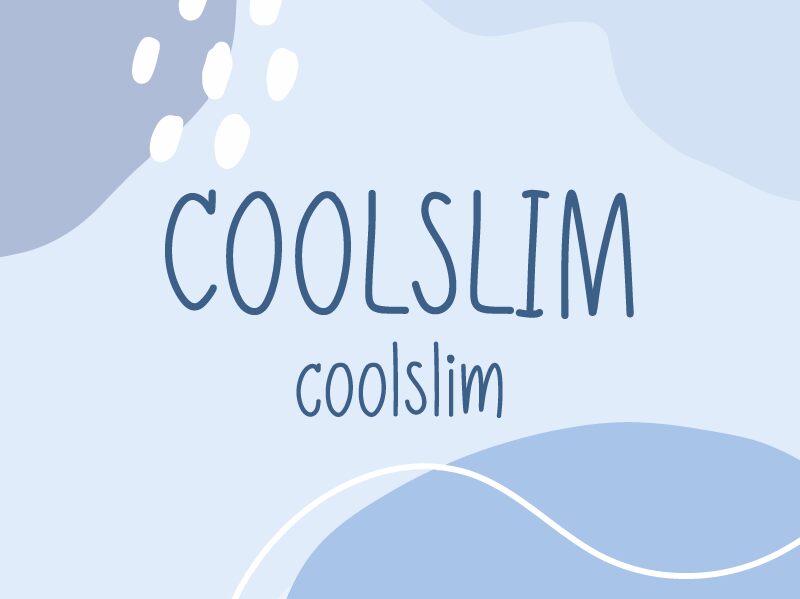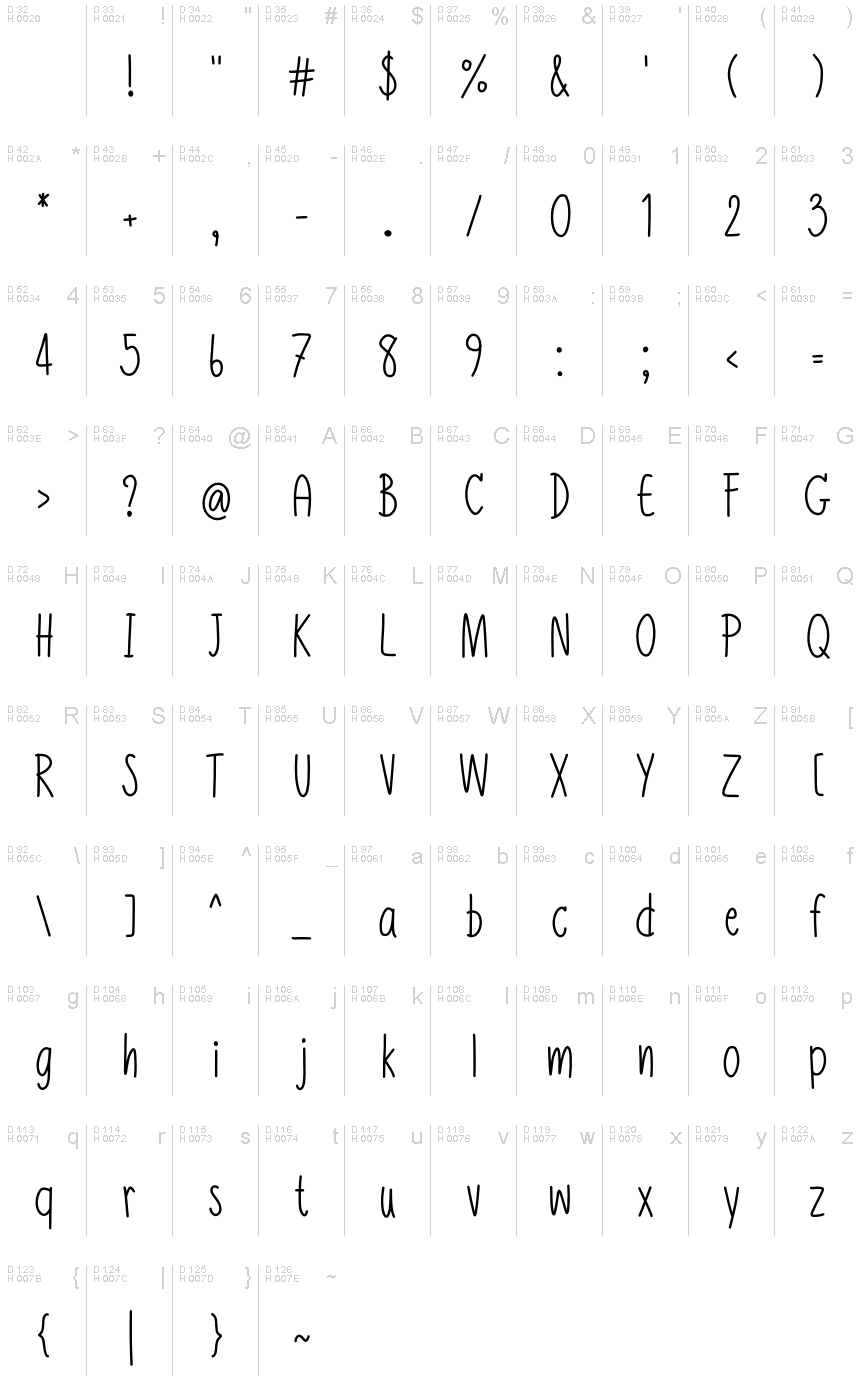
Coolslim Regular
Coolslim, a creation by Sivaporn Yutitham, is a captivating handwritten font that exudes a delicate and refined elegance. With its light and condensed strokes, this font effortlessly captures the essence of artisanal calligraphy, evoking a sense of sophistication and charm.
The Coolslim font's distinctive features, including its fluid lines and seamless transitions, make it a versatile choice for a wide range of design applications. From high-end branding and editorial layouts to delicate stationery and invitations, this font's unique character seamlessly blends traditional elegance with a modern sensibility, allowing it to elevate any project with its timeless appeal.